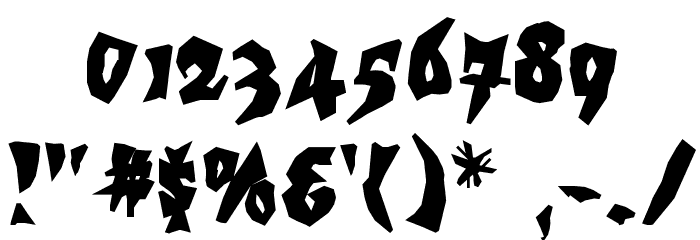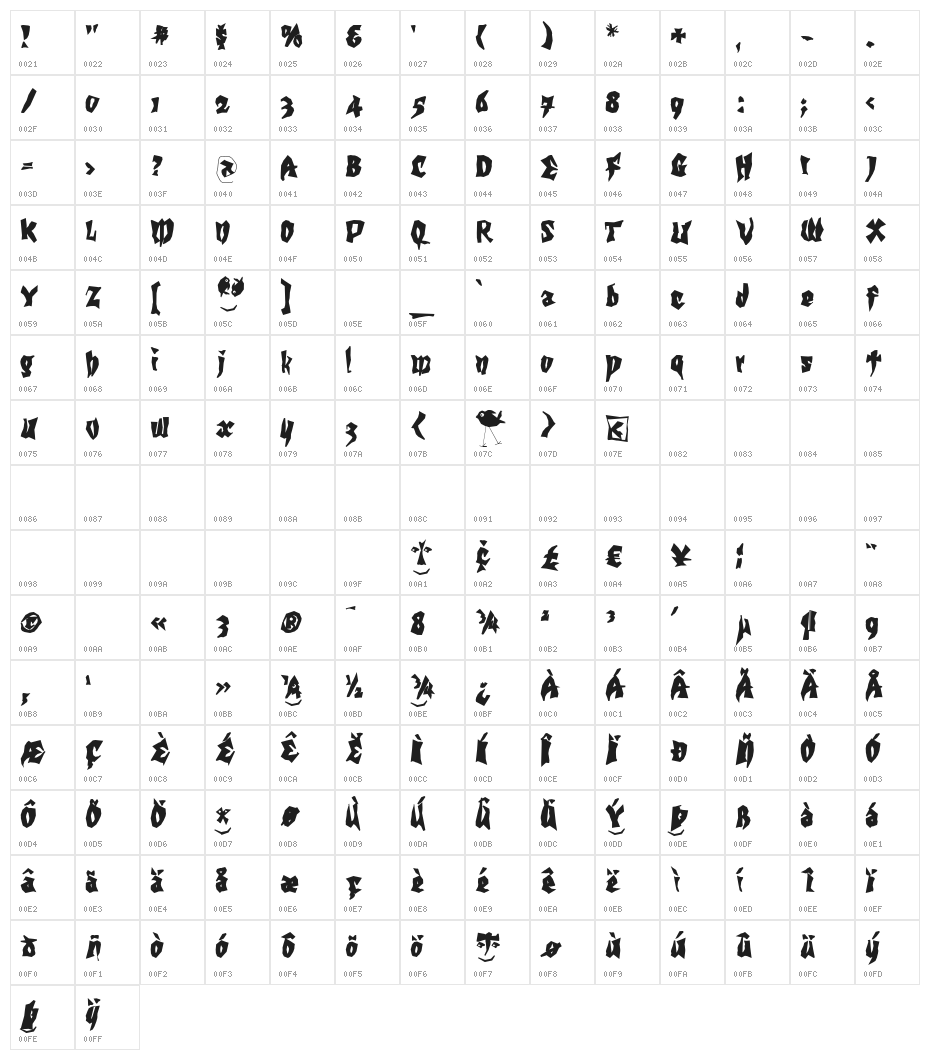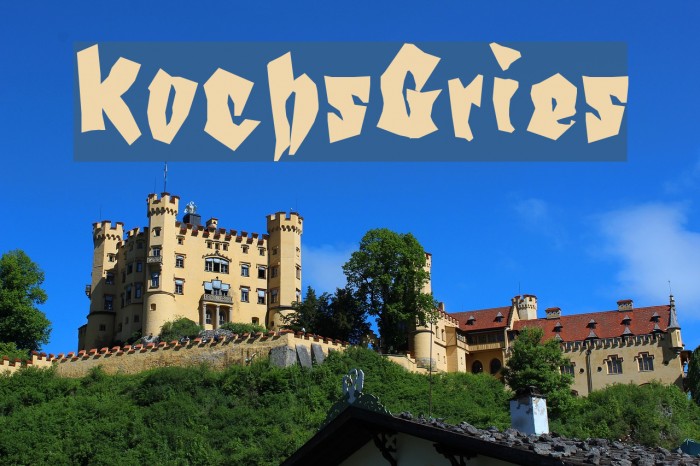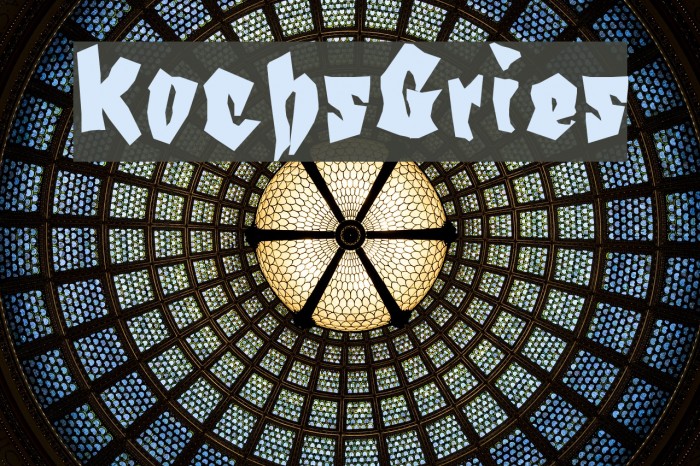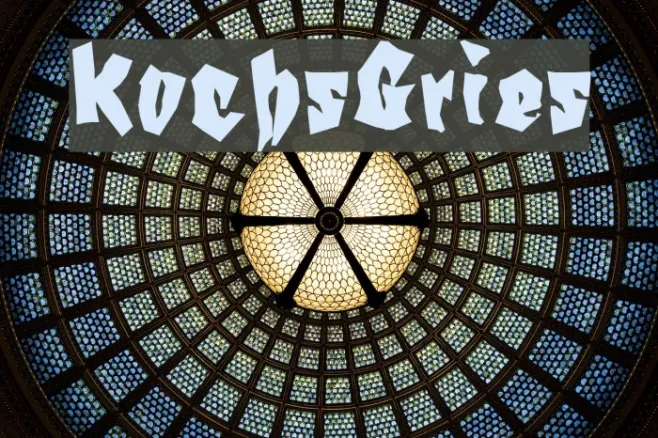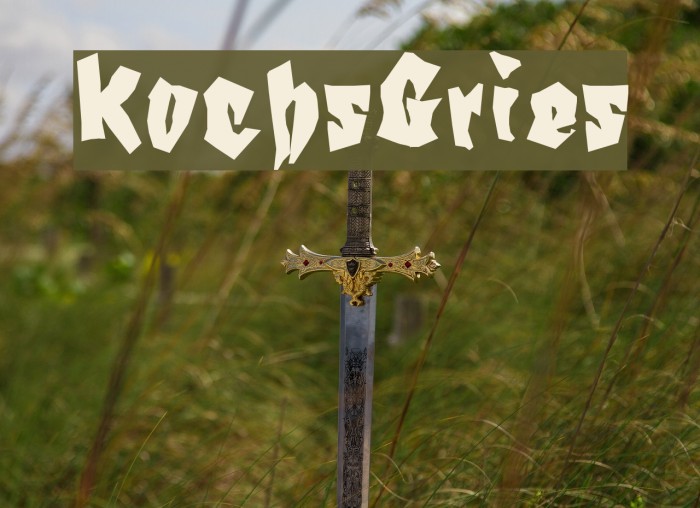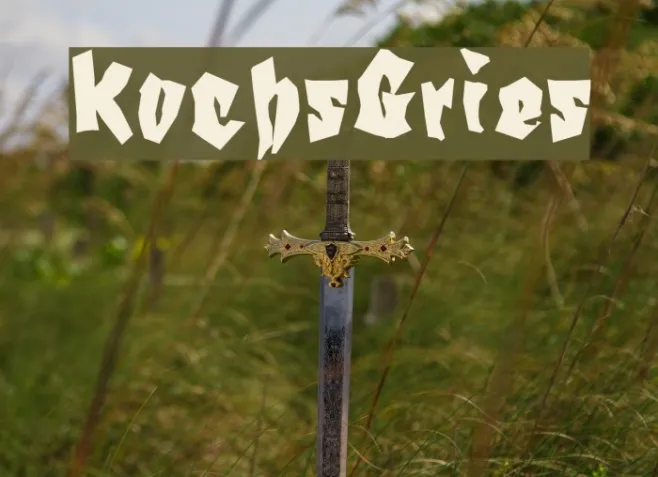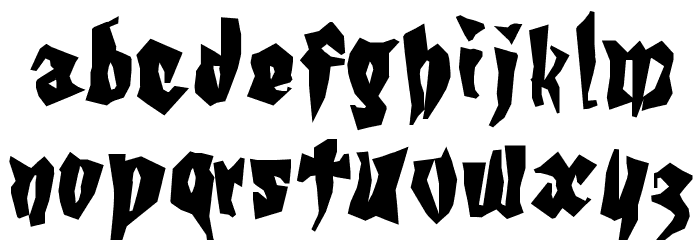
KochsGries Font
KochsGries Description
This font features a bold and angular design, reminiscent of Gothic or Blackletter styles. The characters are sharply defined with dramatic, pointed edges and a strong presence. The uppercase and lowercase letters maintain a consistent style, with a unique flair that gives each letter a distinct personality. The numbers and special characters follow the same bold and edgy design, making them stand out. This font is highly decorative and commands attention, suitable for projects that require a striking and memorable visual impact.
| Proposed Projects | Ideal for use in posters, album covers, logos, and any design requiring a dramatic and bold statement. |